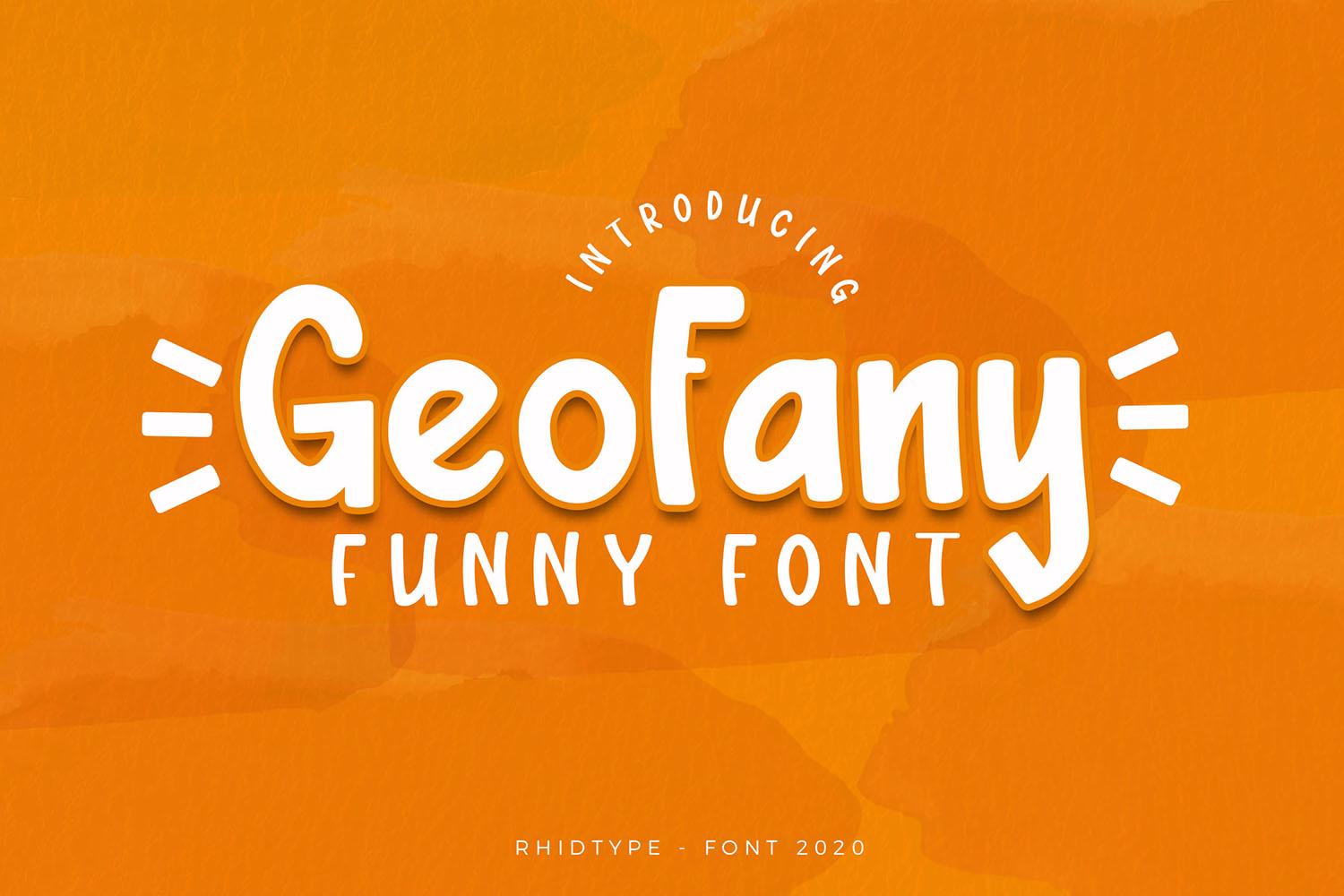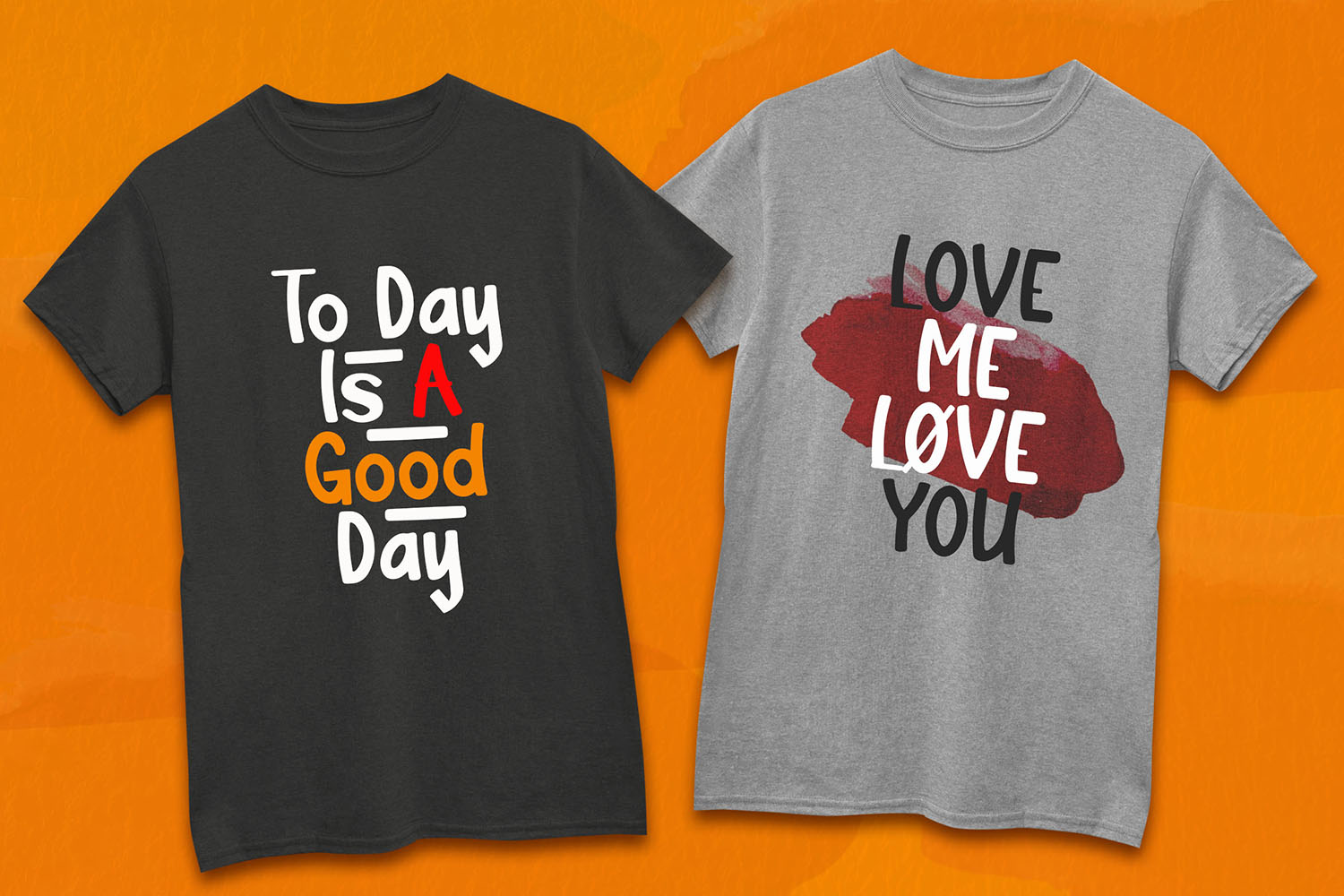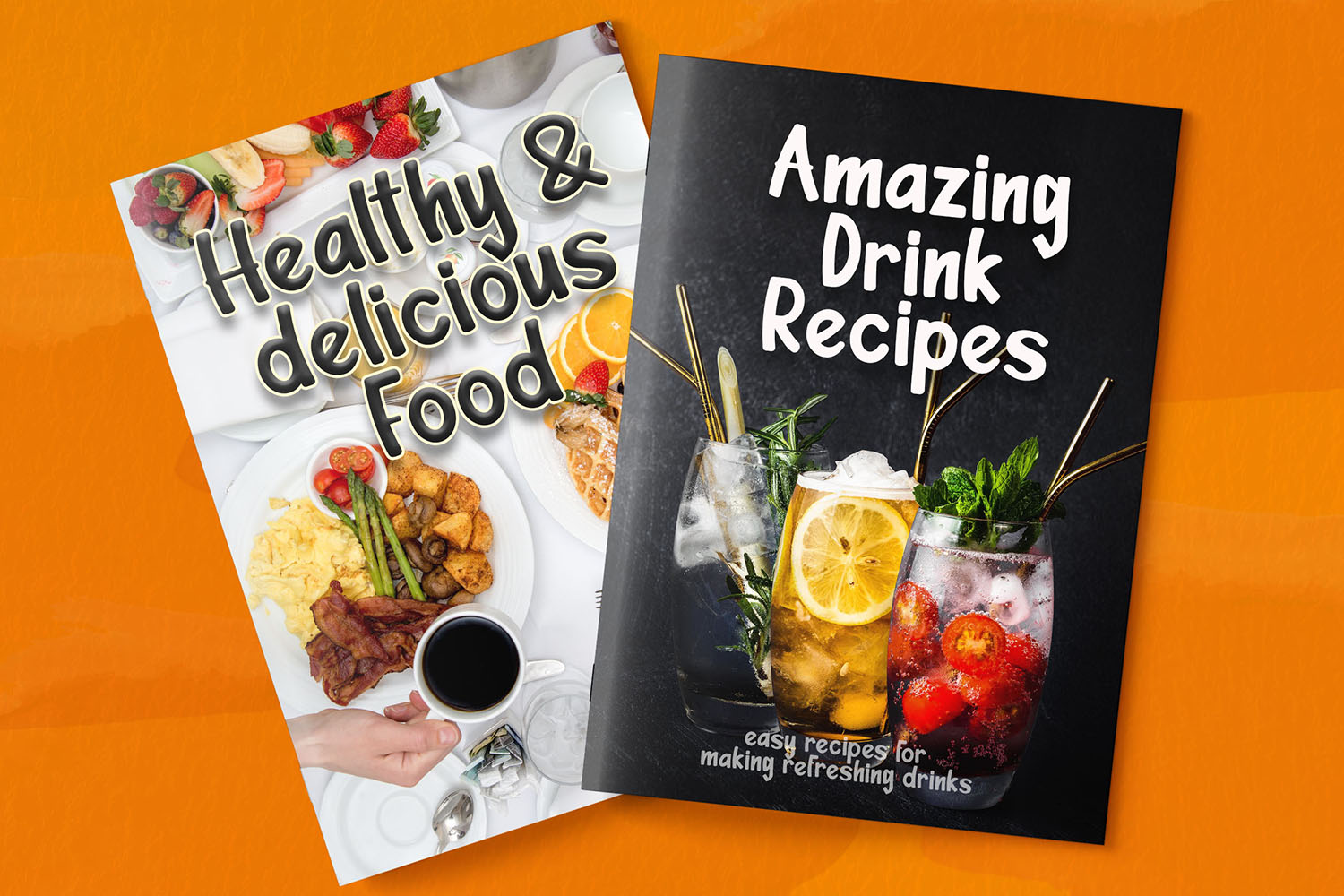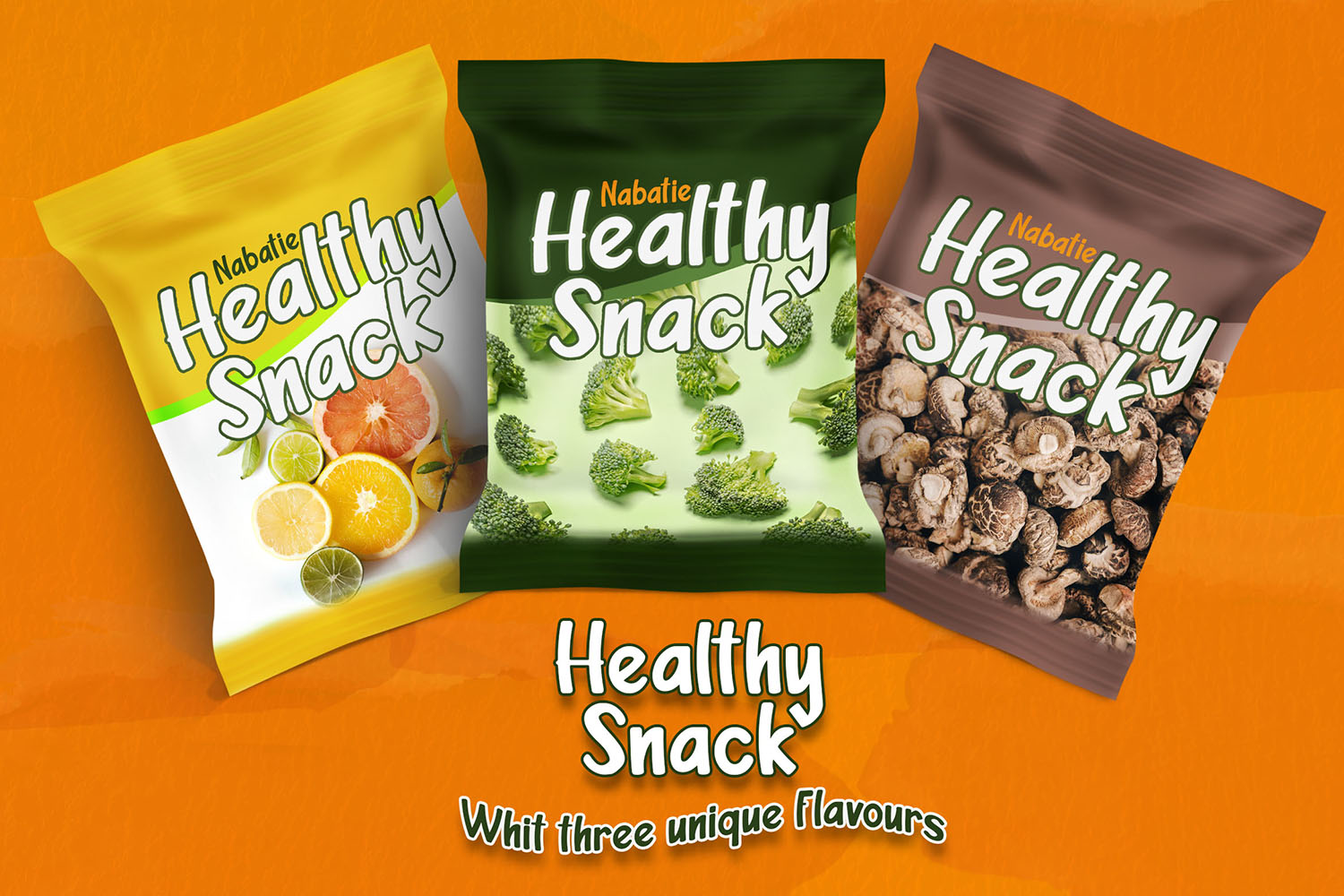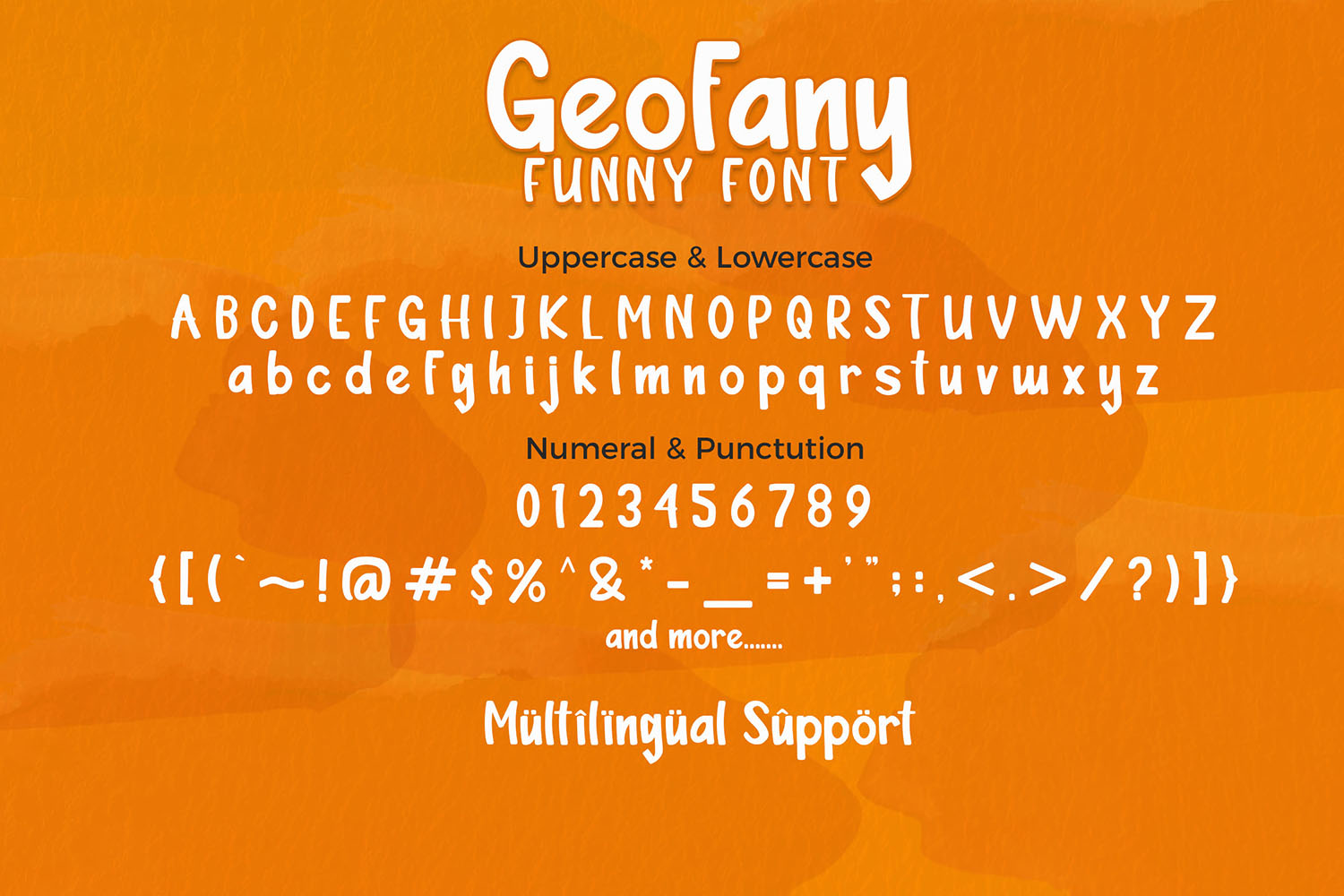
Geofany Free Font
Meet Geofany Free Font, a playful and whimsical display font that adds a fun twist to your creative endeavors. Whether you’re crafting, designing digitally, creating presentations, or making greeting cards, this font is the ideal choice for adding a touch of joy and creativity to your projects. This free typeface was designed by a talented RHIDTYPE STUDIO. If you like it don’t forget to check out the full version.